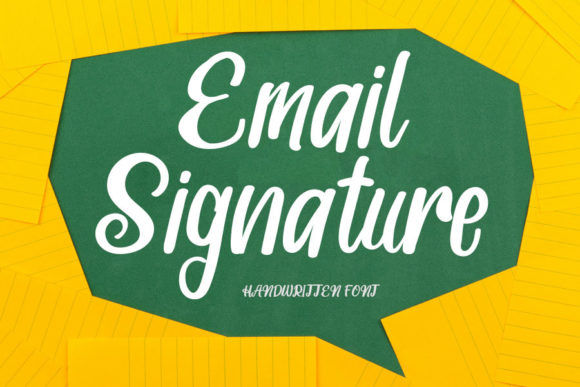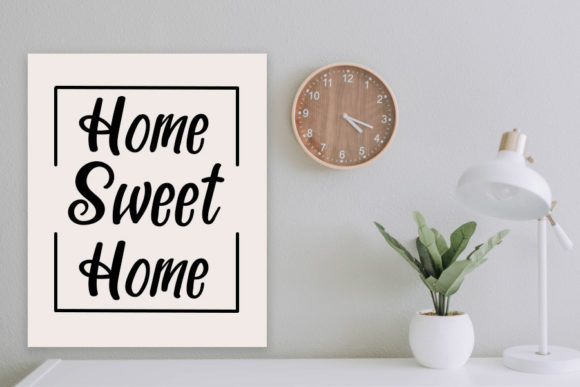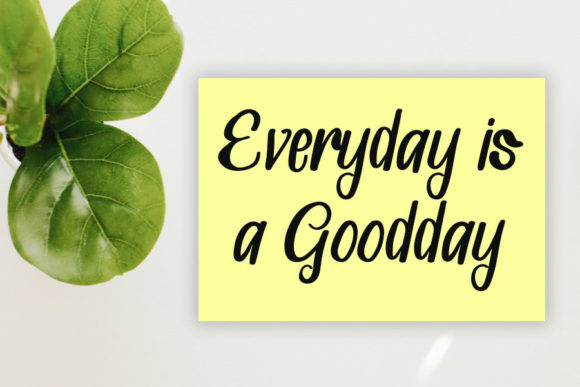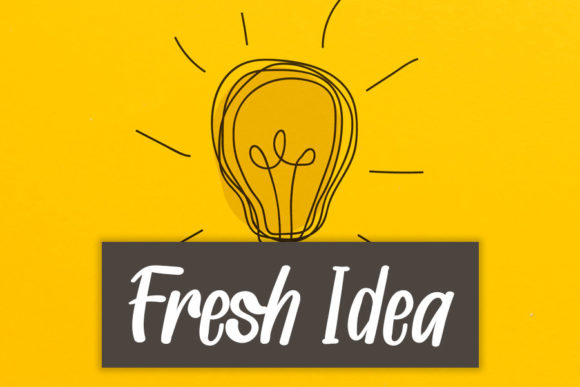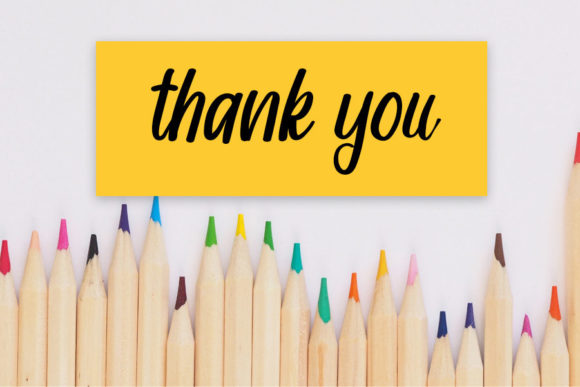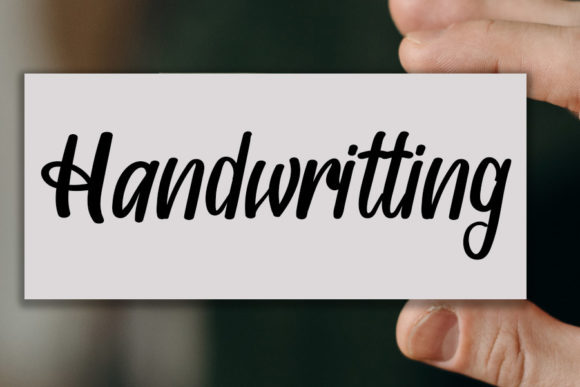
Email Signature Font
About Email Signature Font
Email Signature is an incredibly distinct, delicate and timeless handwritten font. It looks stunning on wedding invitations, thank you cards, quotes, greeting cards, logos, business cards and every other design which needs a customized touch.